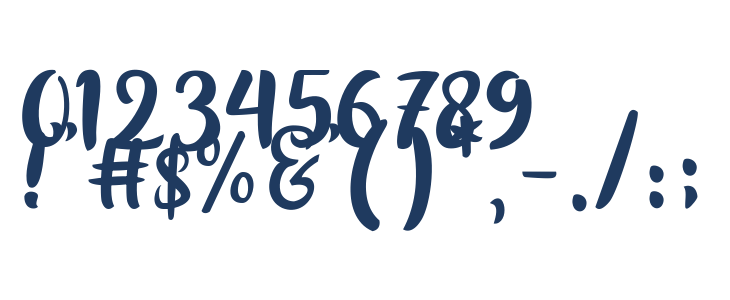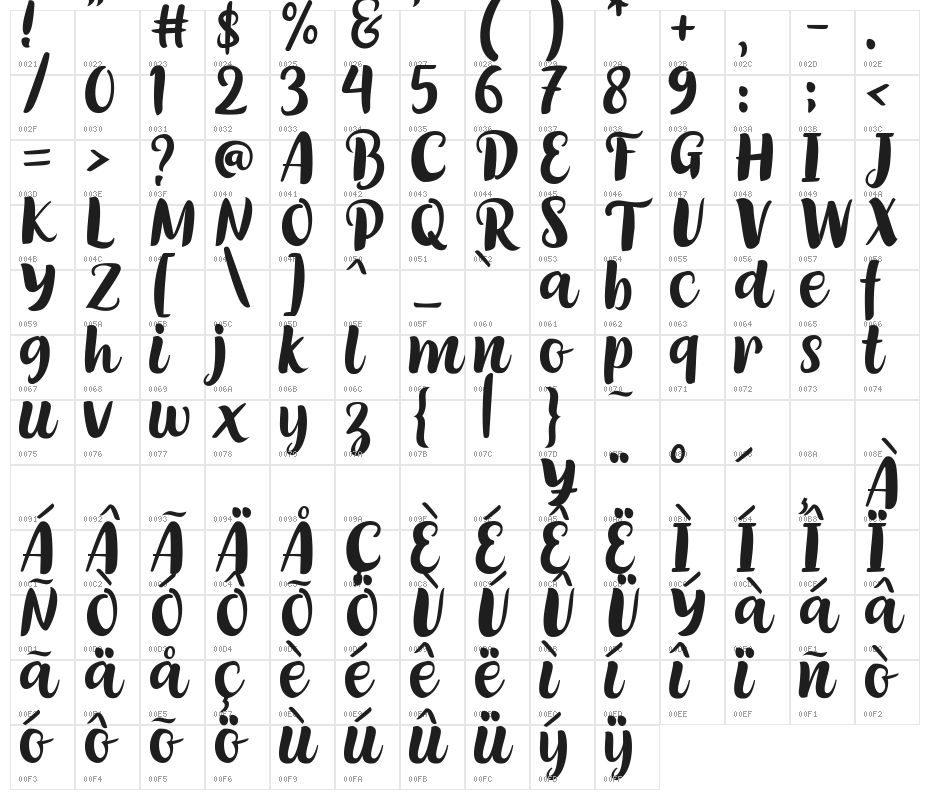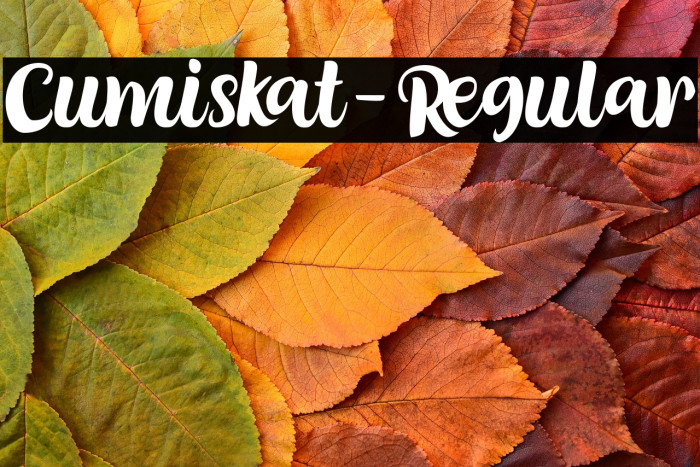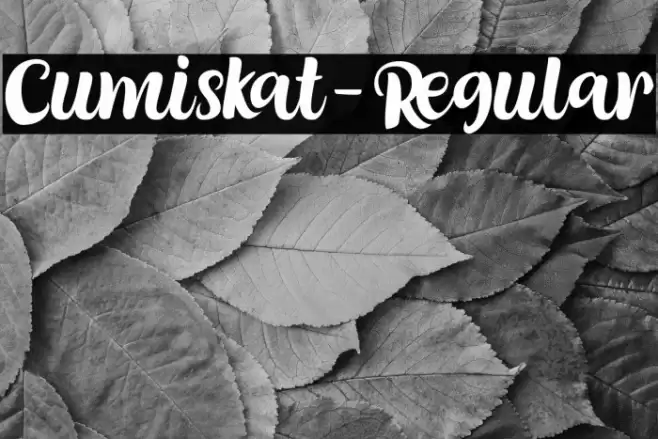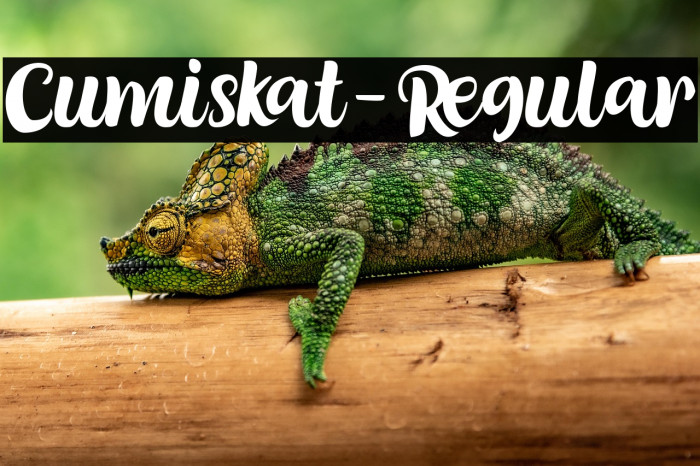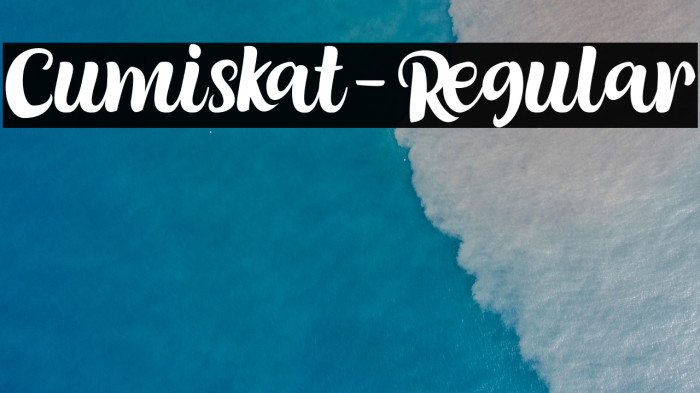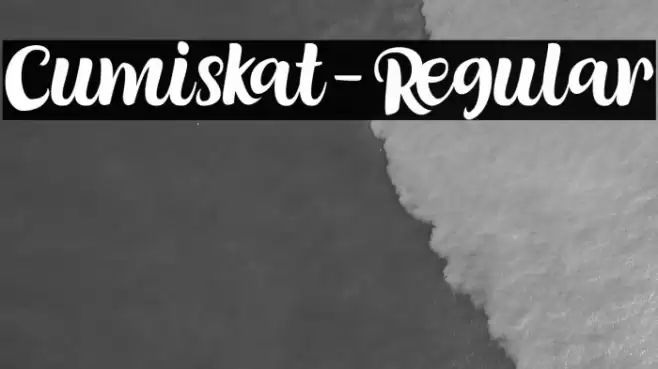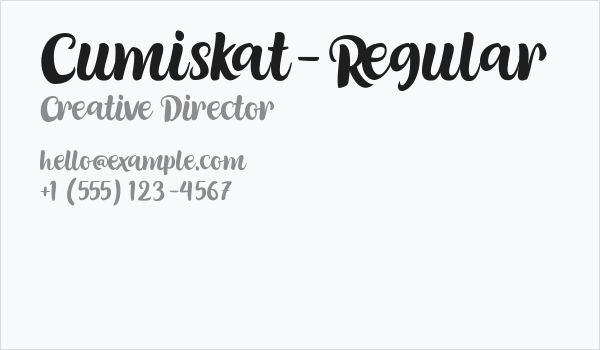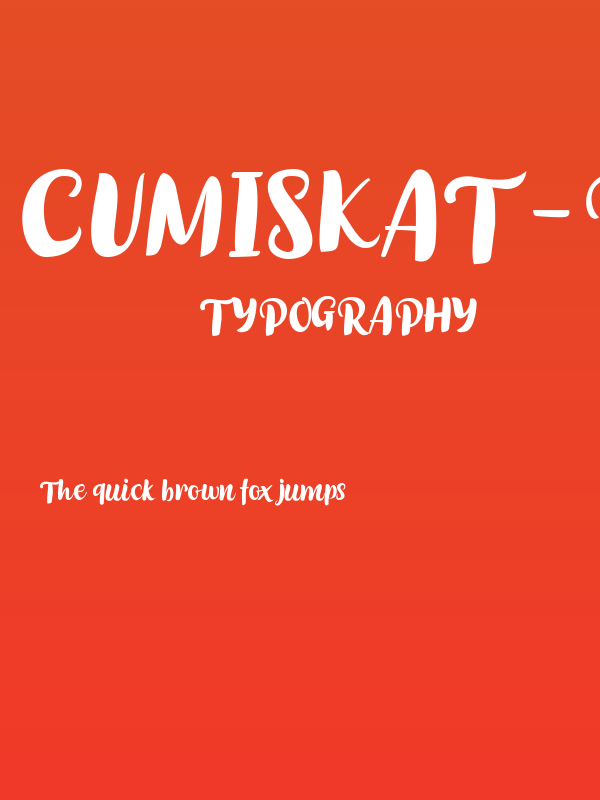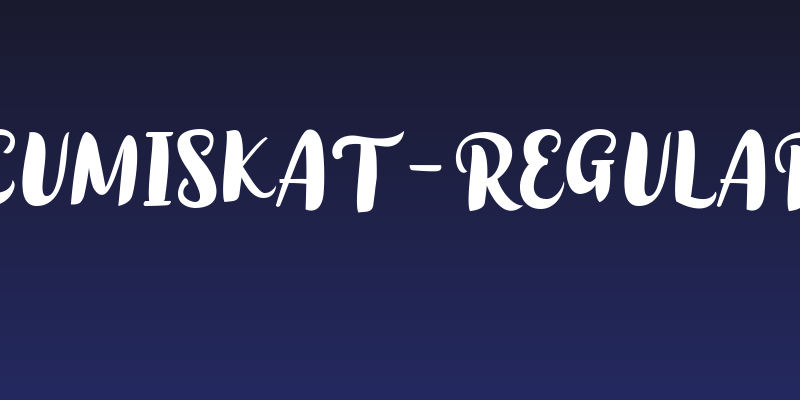
Cumiskat-Regular Font
Cumiskat-Regular Description
This font features a bold and expressive script style, characterized by its flowing, cursive letterforms. The uppercase letters are elegantly crafted with sweeping curves and a sense of movement, while the lowercase letters maintain a consistent rhythm and balance. The numbers are bold and dynamic, complementing the overall style. Special characters are designed with the same attention to detail, ensuring a cohesive look across all glyphs. The font's playful yet sophisticated appearance makes it suitable for a variety of creative applications.
| Proposed Projects | Ideal for branding, invitations, greeting cards, and creative posters. |